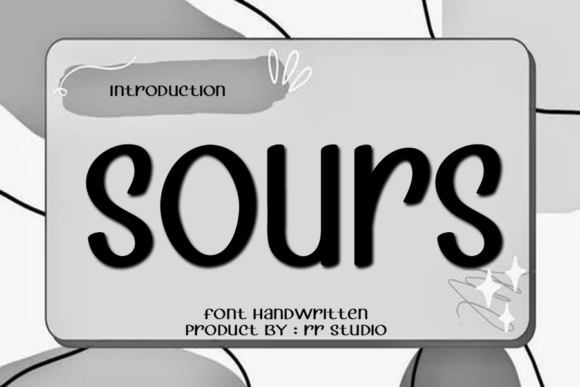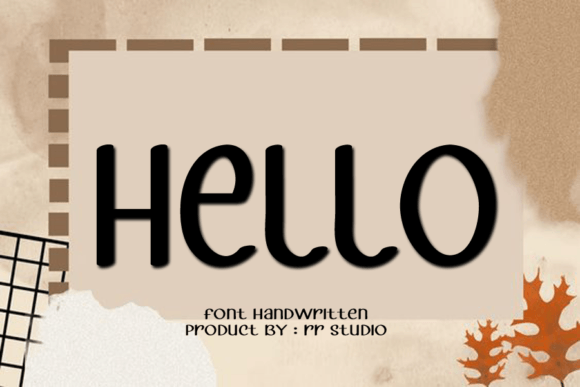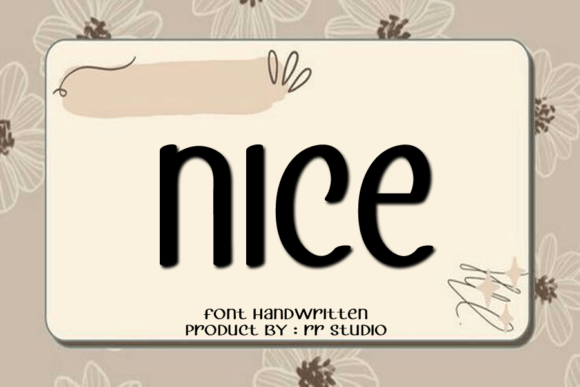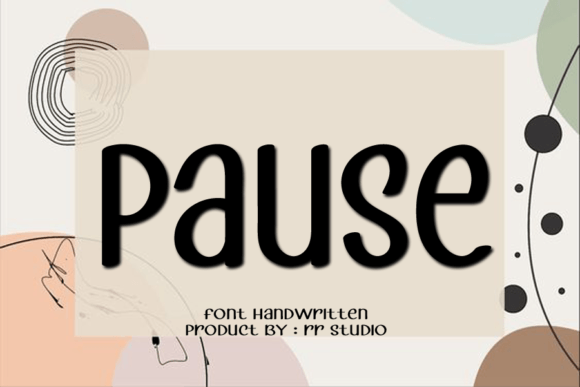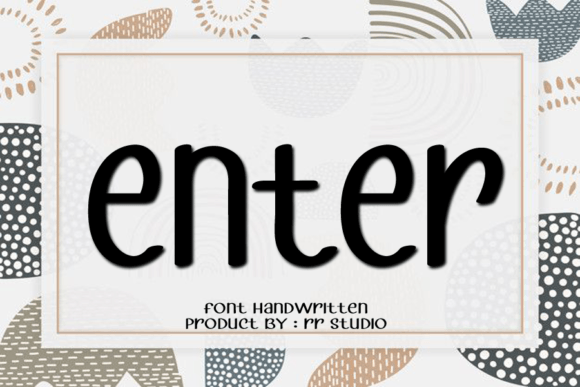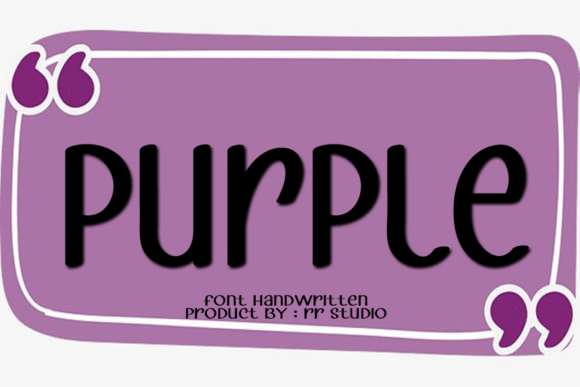
Sours Font
About Sours Font
**Sours – Casual and Friendly Handwritten Font for Versatile Design**
Sours is a delightful handwritten font that brings a casual and friendly vibe to your creative projects. Here’s why Sours should become your favorite go-to font for various occasions:
1. **Warm and Approachable:** Sours exudes warmth and approachability, making it an excellent choice for projects where you want to create a friendly and welcoming atmosphere.
2. **Versatile Usage:** This font is suitable for a wide range of applications, including crafting, digital design, presentations, greeting cards, and more.
3. **Playful Aesthetics:** Sours’ playful aesthetics add a cheerful and lighthearted touch to your designs, making them more engaging and appealing.
4. **Memorable Charm:** The font’s unique charm sets your designs apart, making them more memorable and leaving a positive impression on your audience.
5. **User-Friendly:** Whether you’re a professional designer or just getting started, Sours is user-friendly and easy to work with, ensuring that you can achieve your desired results effortlessly.
6. **Crafting Delight:** Use Sours for crafting projects, including personalized gifts, DIY cards, scrapbooking, and more, to add a personalized and heartfelt touch.
7. **Digital Design:** Incorporate Sours into your digital designs, such as social media posts, websites, and digital ads, to infuse them with a friendly and inviting feel.
8. **Presentations:** Make your presentations more engaging and relatable by using Sours in your slides to connect with your audience on a personal level.
9. **Greeting Cards:** Design charming greeting cards for various occasions, from birthdays to thank-you notes, using Sours to convey warmth and sincerity.
10. **Ease of Use:** Sours’ clarity and legibility ensure that your message comes across effectively, making it suitable for conveying information and emotions.
11. **Positive Impact:** Create designs that leave a positive impact, making people smile and feel appreciated.
12. **Inviting Appearance:** Sours’ handwritten style creates an inviting and approachable appearance, making it perfect for projects where a personal touch is needed.
13. **Casual Elegance:** Achieve a casual yet elegant look in your designs with Sours’ effortless and stylish handwritten appearance.
14. **Customization:** Experiment with various design elements and variations to customize your projects and give them a unique touch.
15. **Friendly Branding:** Use Sours in your branding efforts to create a friendly and relatable brand image that resonates with your audience.
Sours is your go-to font when you want to infuse your designs with a casual, friendly, and approachable vibe. Its versatility and ability to convey warmth and charm make it an essential tool for a wide range of design projects. Whether you’re crafting, designing digitally, or creating presentations, Sours will help you connect with your audience and leave a lasting, positive impression.